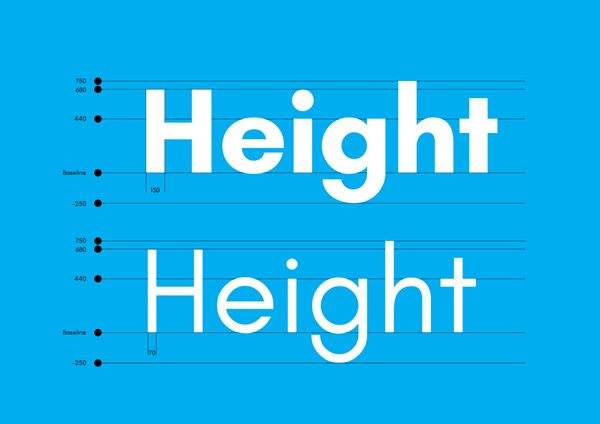
Free Font Of The Day #185 – Glacial Indifference Font
Glacial Indifference Font
The font is an open-source typeface with inspirations from Bauhaus geometric fonts. Designed by Alfredo Marco Pradil.